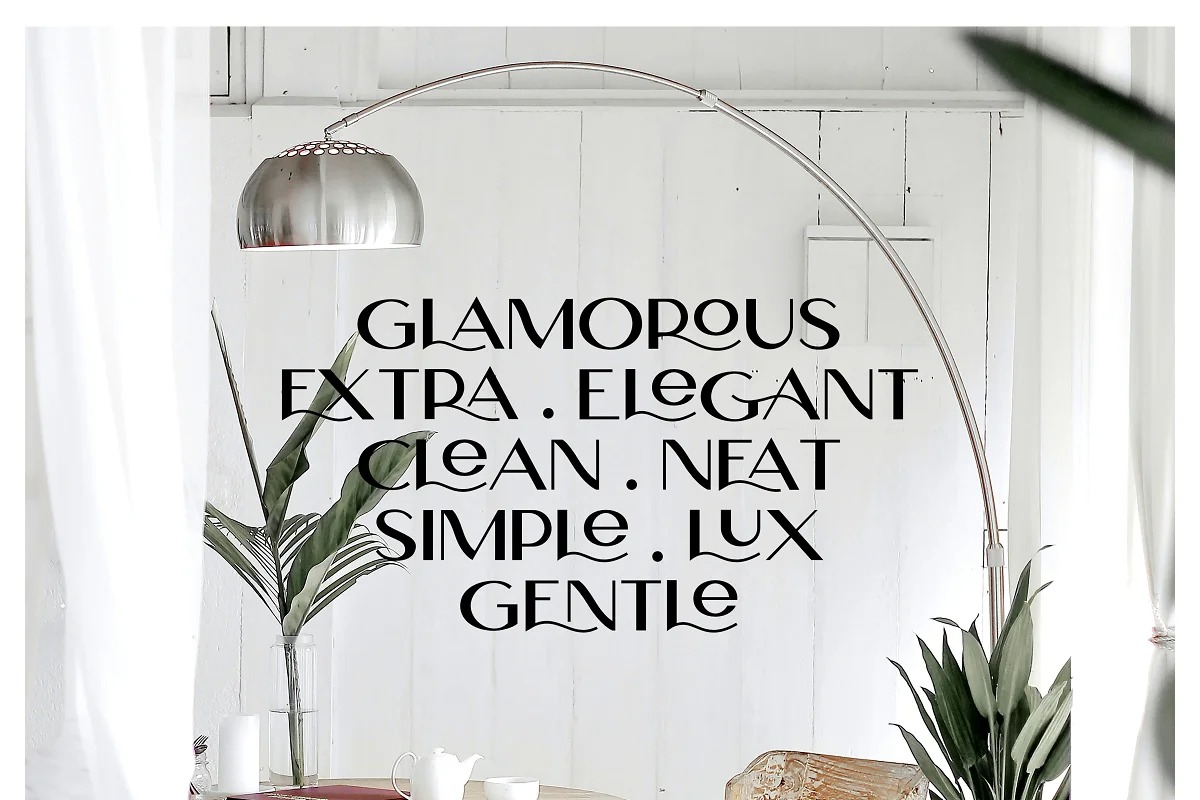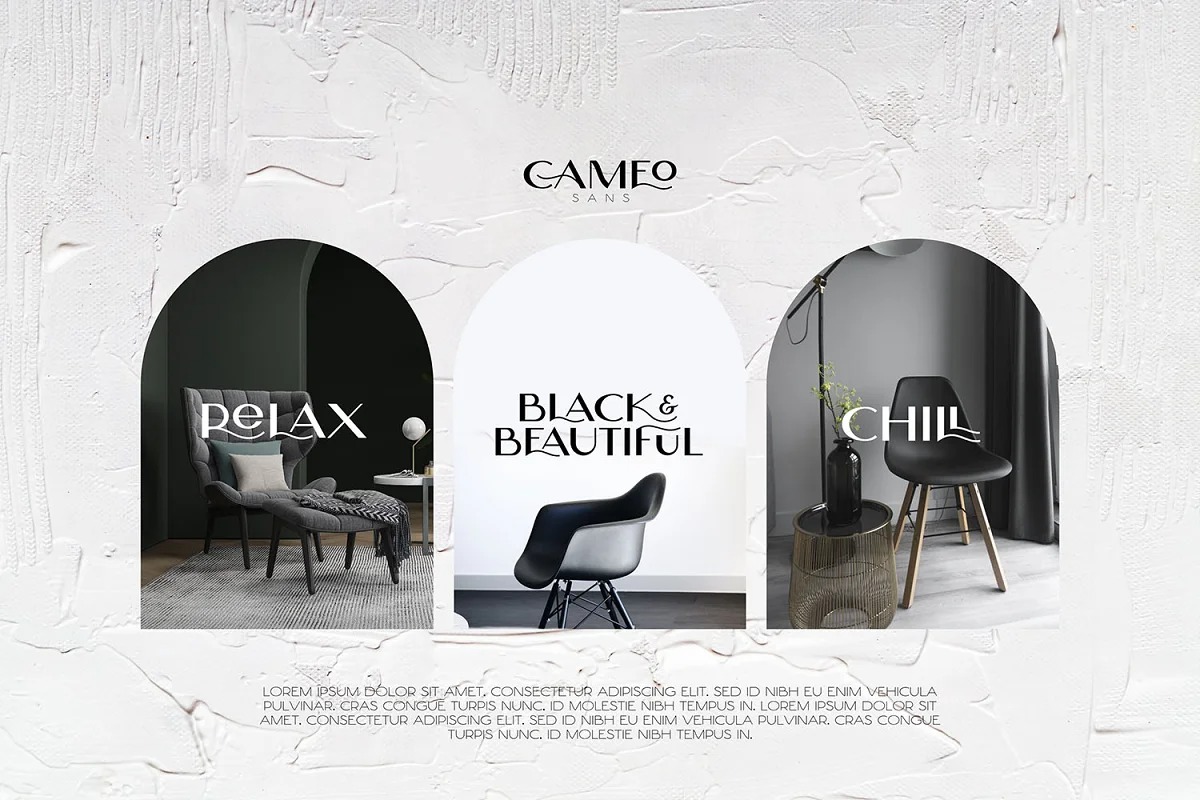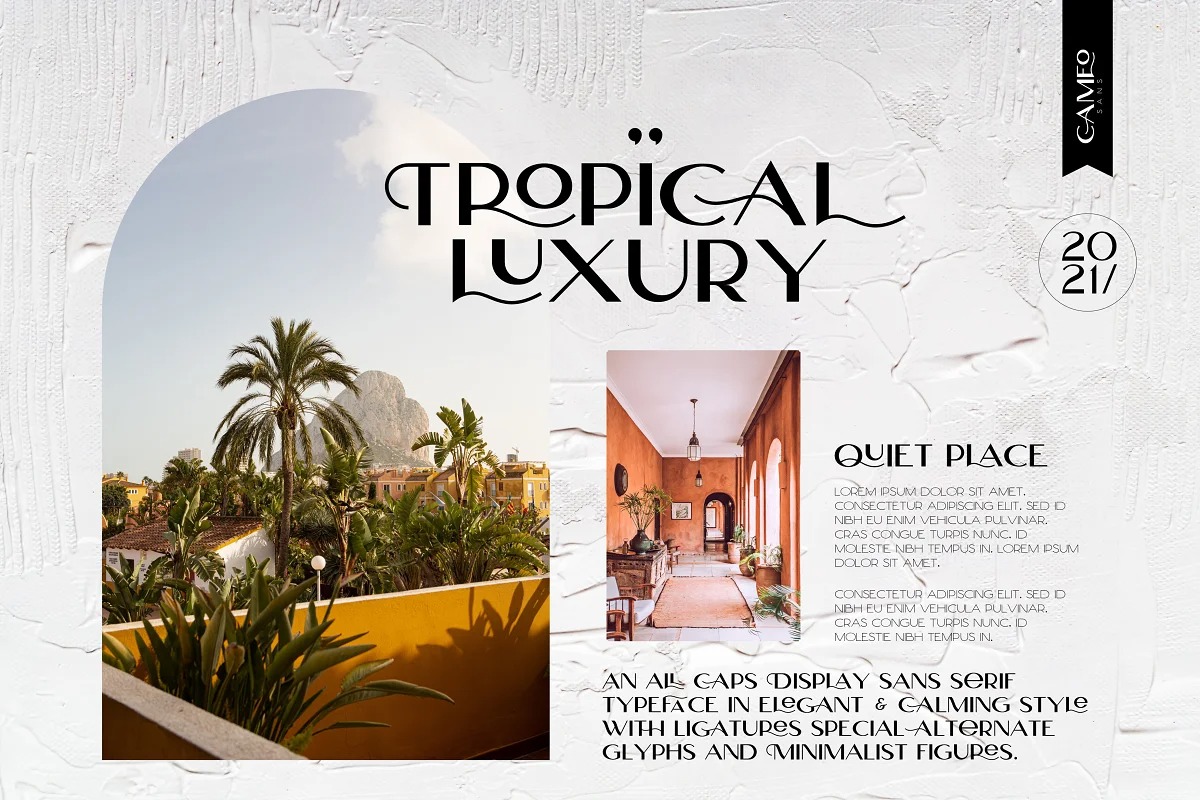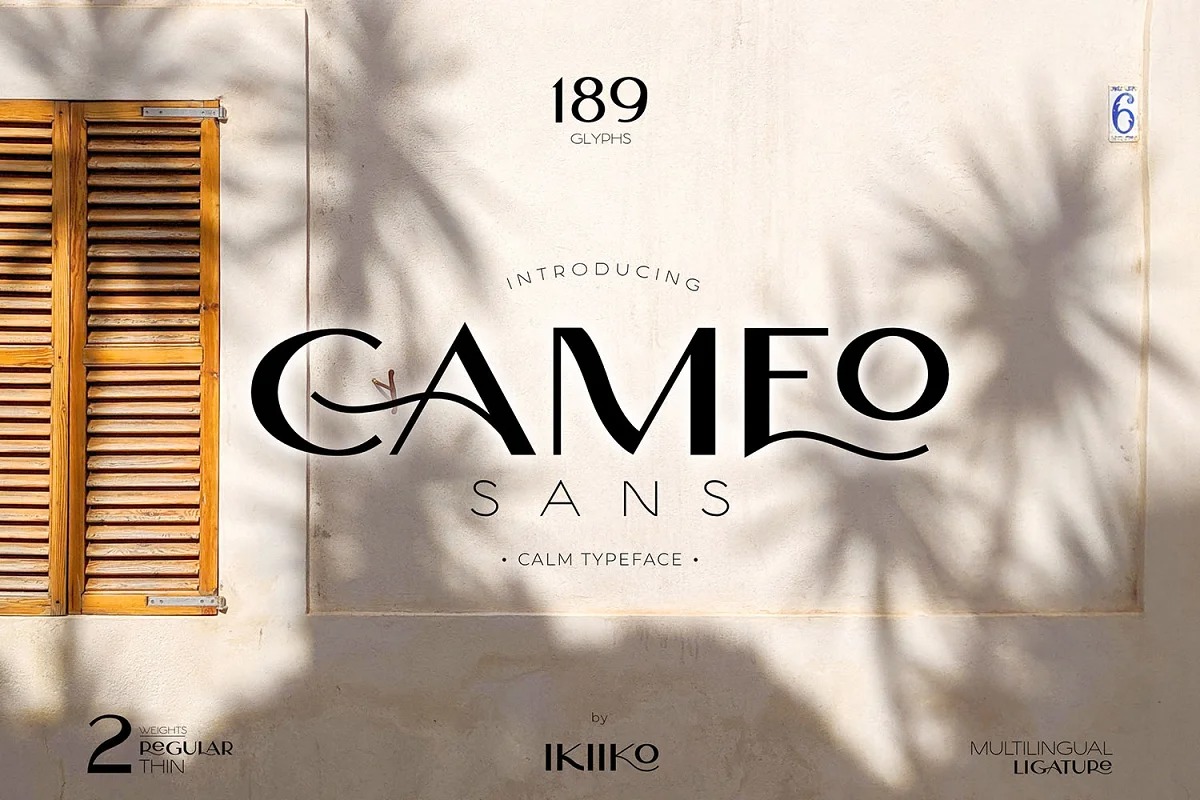
Cameo Sans Font
It’s a modern ligature typeface with Unique, Classy and Stylish. Made from font designer named ikiikowrk. Is a neat & calming sans serif typeface with ton of stylistic alternatives to choose. This typeface is perfect for an elegant logo, interior magazine, beauty product, packaging product, quotes, or simply as a stylish text overlay to any background image.